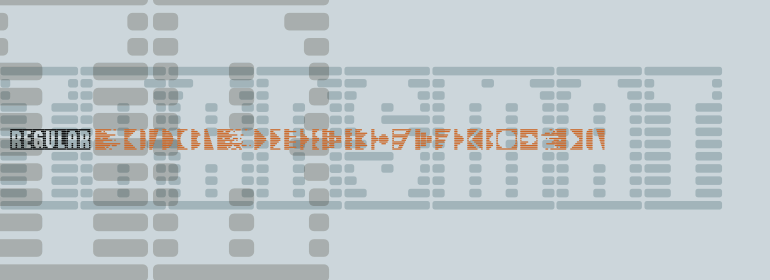
Transmat
Transmat is a two-style display family from Device with a distinctly 1980s, new wave attitude. Its stylized construction gives it a special-effect look that feels graphic, synthetic, and intentionally bold, making it a strong choice when you want typography to set the tone right away.
The family includes Transmat Regular and Transmat Terminals, giving you two related looks to work with across the same visual theme. Use it for posters, album-inspired graphics, branding with a retro-futurist edge, packaging, apparel, or other headline-driven work where a more conventional display face would feel too restrained.